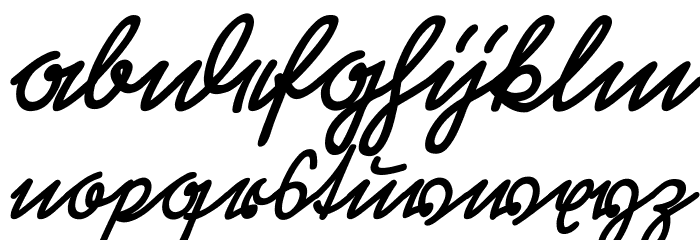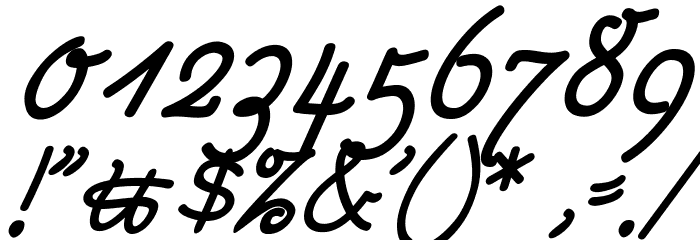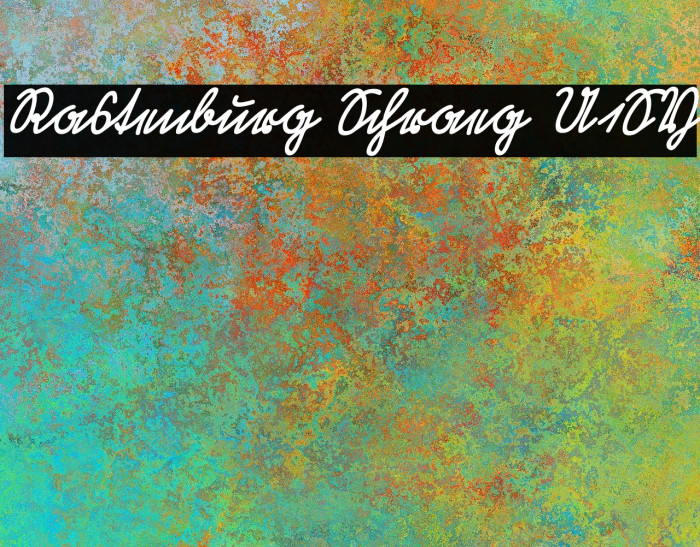
Rastenburg Schraeg U1SY Font
This font features a dynamic and flowing script style, characterized by its elegant and cursive letterforms. The letters are interconnected, creating a seamless and fluid appearance that mimics natural handwriting. The strokes are bold and consistent, providing a strong visual impact while maintaining readability. The font includes both uppercase and lowercase letters, numbers, and a variety of special characters, making it versatile for different design needs. Its distinctive style is suitable for projects that require a personal and artistic touch.
A bold, cursive script font with interconnected, flowing letterforms.
- Proposed Projects: Ideal for wedding invitations, greeting cards, branding, and logo design where a personal and elegant touch is desired.
- Character Spacing: Tight
- Use Case: Logos, Invitations, Greeting Cards